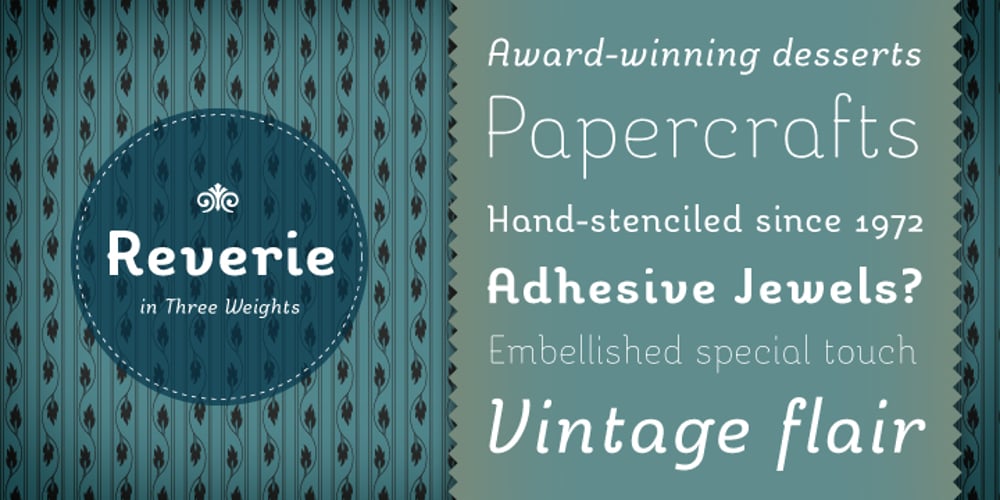
Reverie Font Family was designed by Galen Lawson and published by District. Reverie contains 6 styles and family package options. Reverie is a cheerful band of letters that bounce across the page and get together to create words in three weights. Generous spacing and a modest x-height project an airy typeface that’s open but not frail. Quirky without being too whimsical. Use the regular weight for surprisingly readable text or put the light and bold weights to use for decorative headlines and titles.